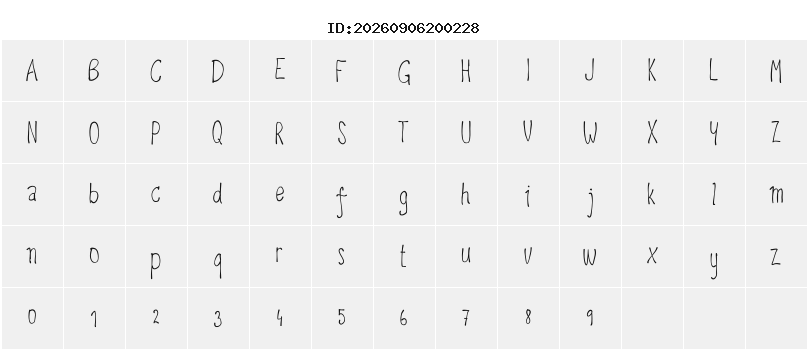
• Font Name: upirpaw
• Full Font Name: upirpaw
• PostScript Name: upirpaw
• Character Count: 247
About upirpaw.ttf
upirpaw.ttf is a modern, elegant sans-serif font designed for ultimate readability and visual harmony. Perfect for branding, headlines, web design, and print materials.